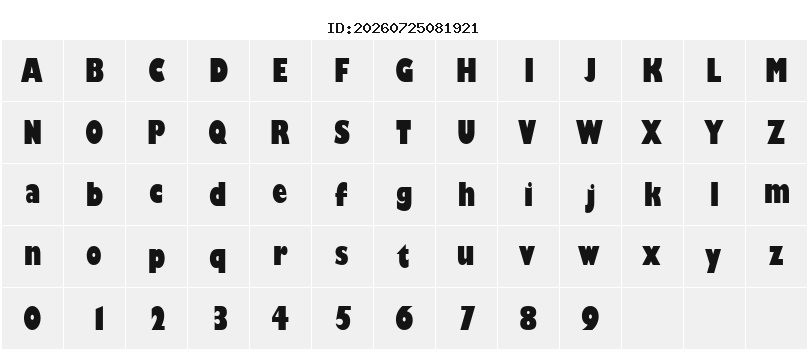
• Font Name: Gill Black Condensed SSi
• Font Style: Black Condensed
About Gill Black Condensed SSi.ttf
Gill Black Condensed SSi.ttf is a modern, elegant sans-serif font designed for ultimate readability and visual harmony. Perfect for branding, headlines, web design, and print materials.